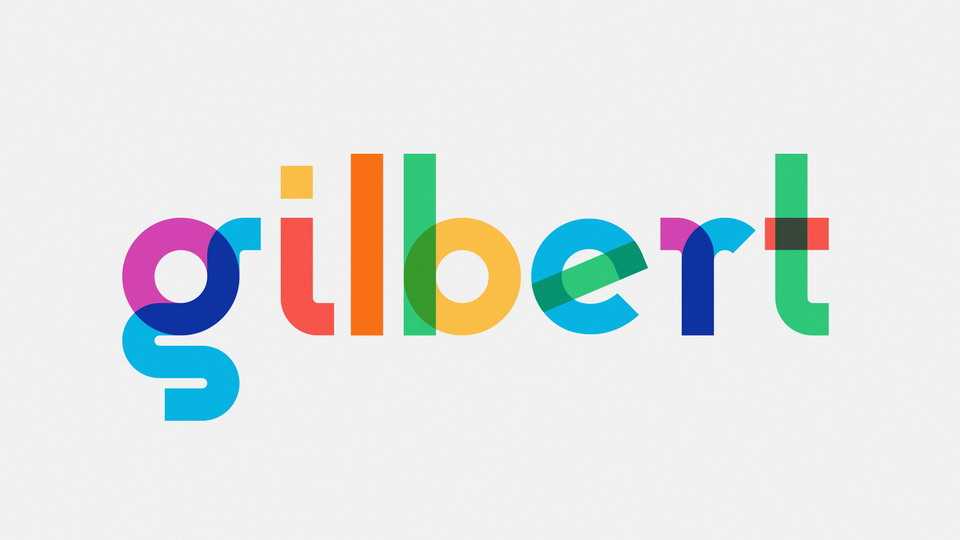
Download Gilbert font, a color typeface originally designed for striking headlines and statements that could live on banners for rallies and protests and it is now currently being built out into a whole family of weights and styles.